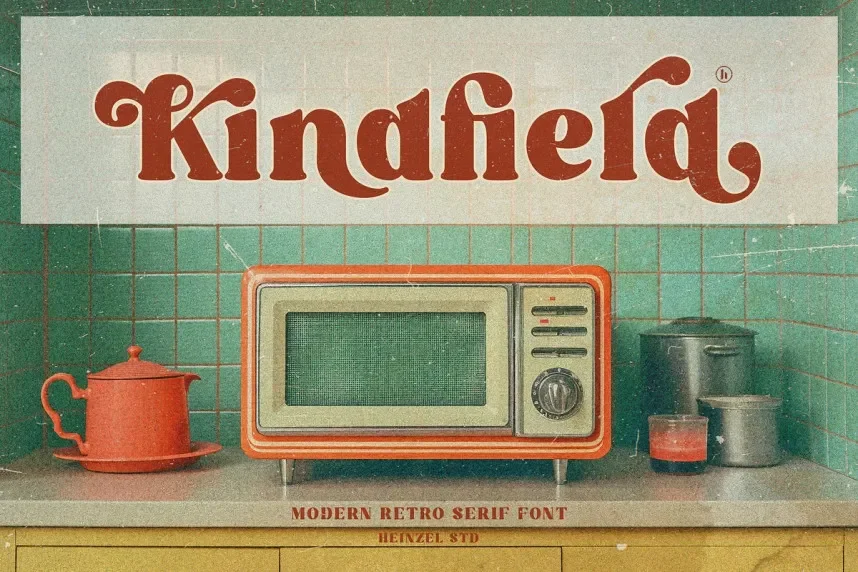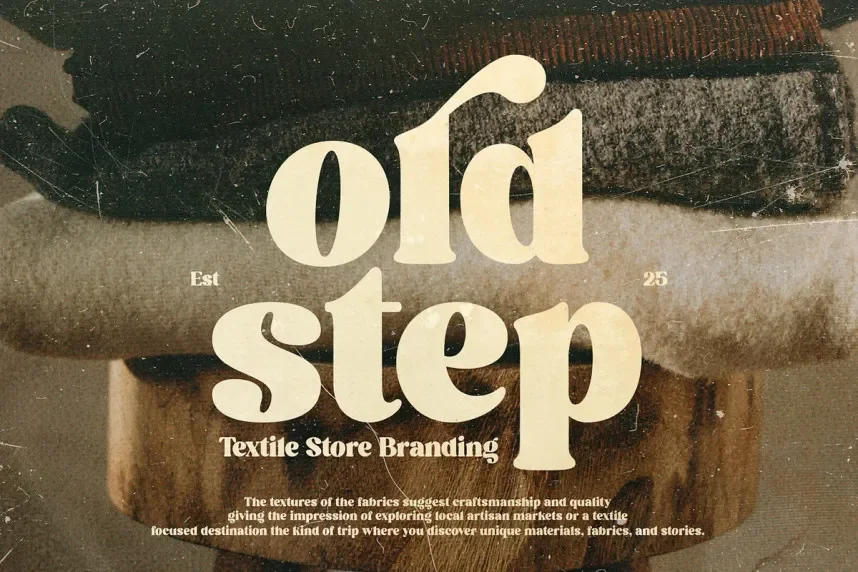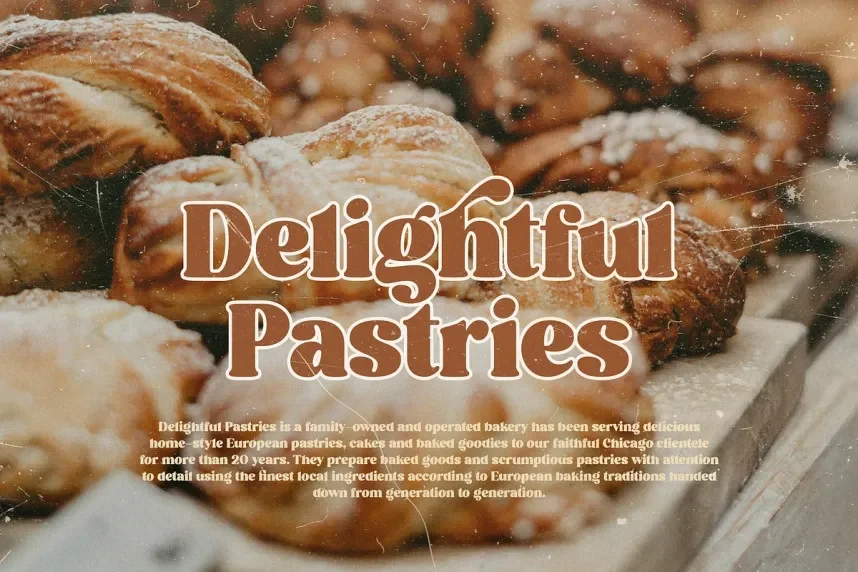
Kindfield Font is a versatile serif typeface that blends modern design with traditional elements. Its elegant strokes and clear readability make it ideal for both print and digital projects that require a refined touch.
Best used for branding, editorial design, and website copy, Kindfield Font pairs well with sans-serif fonts for a sophisticated, contemporary look. Available in TTF and OTF formats, it includes a commercial-use license. Always verify the license before commercial use.